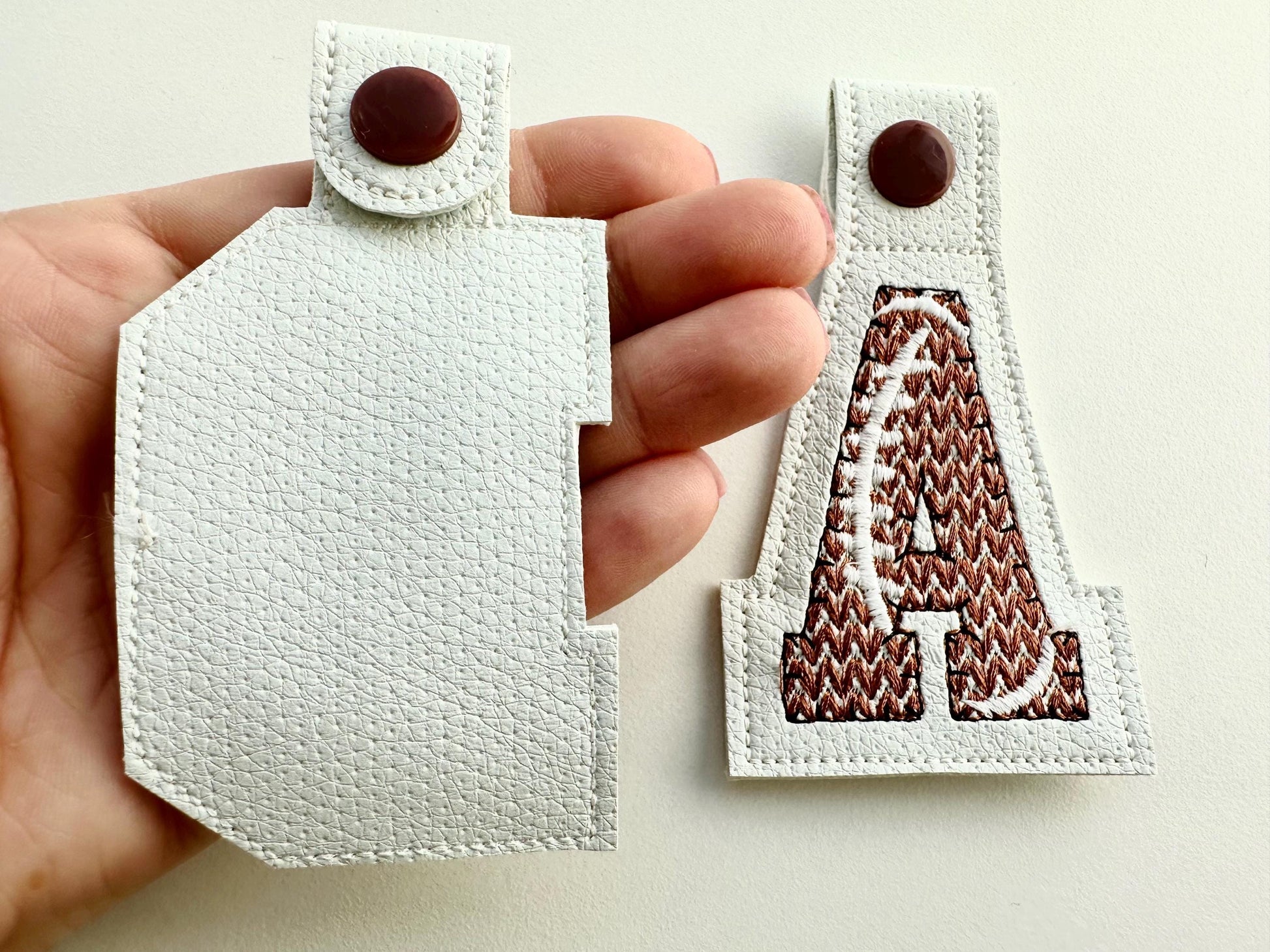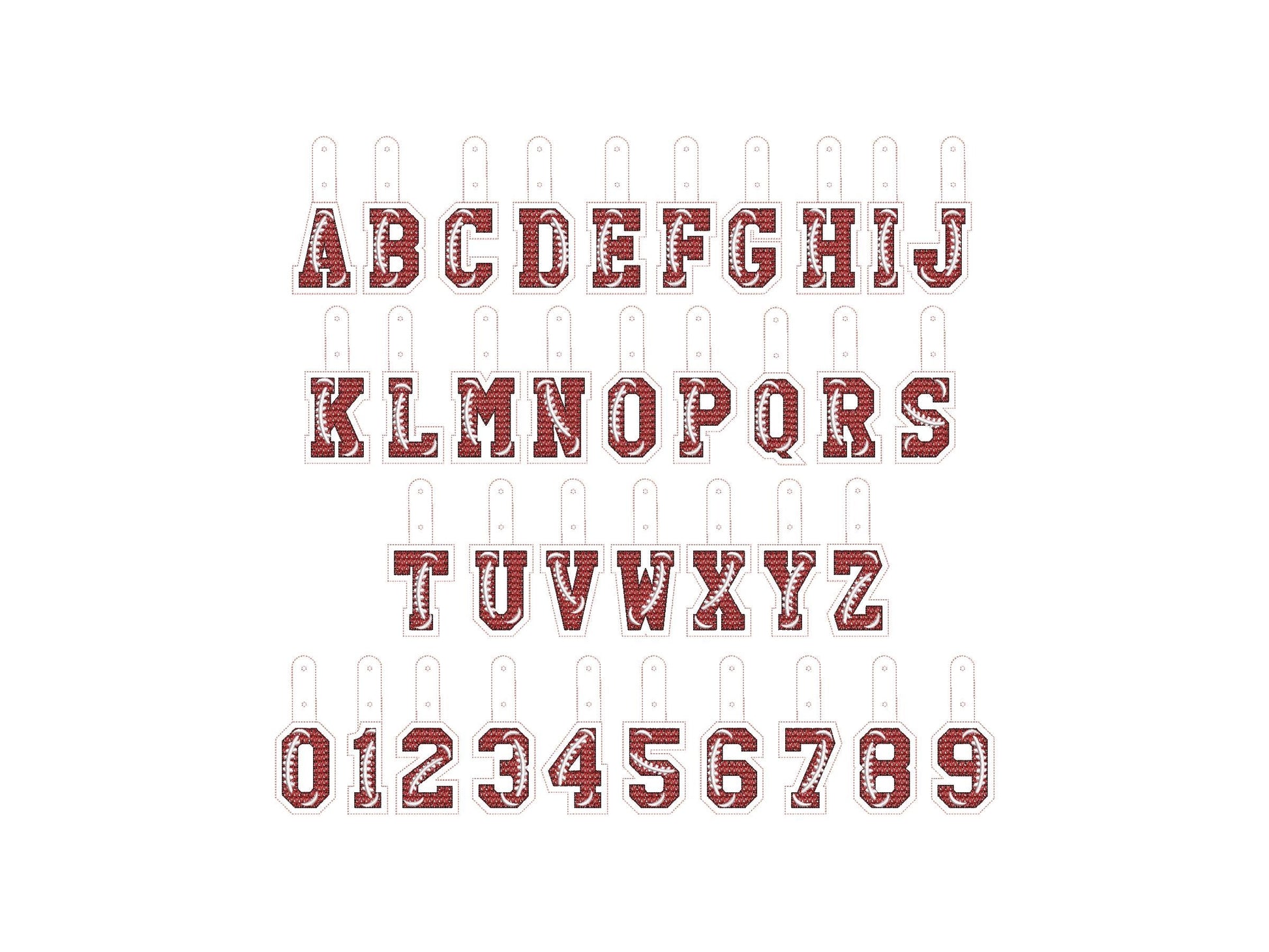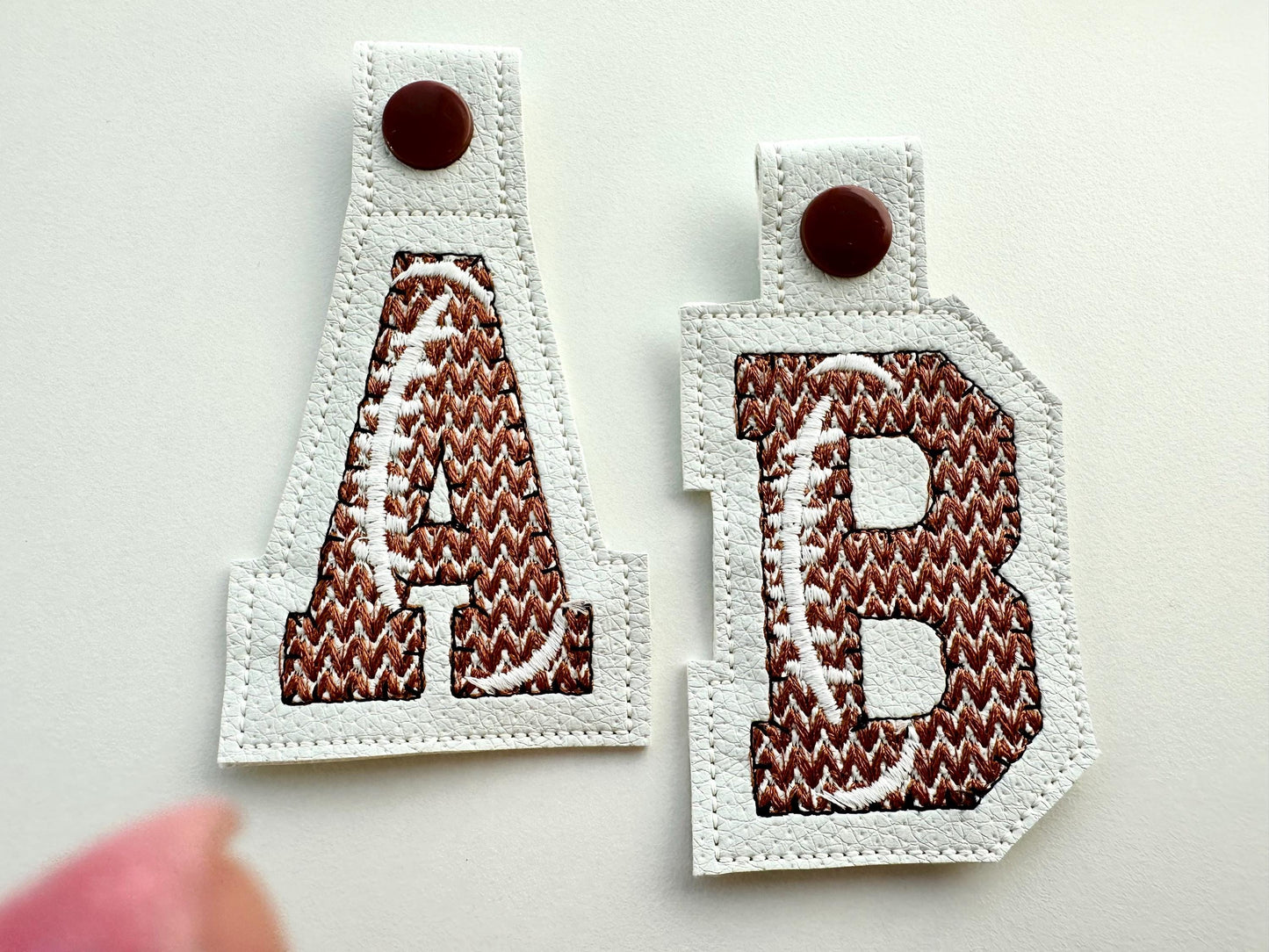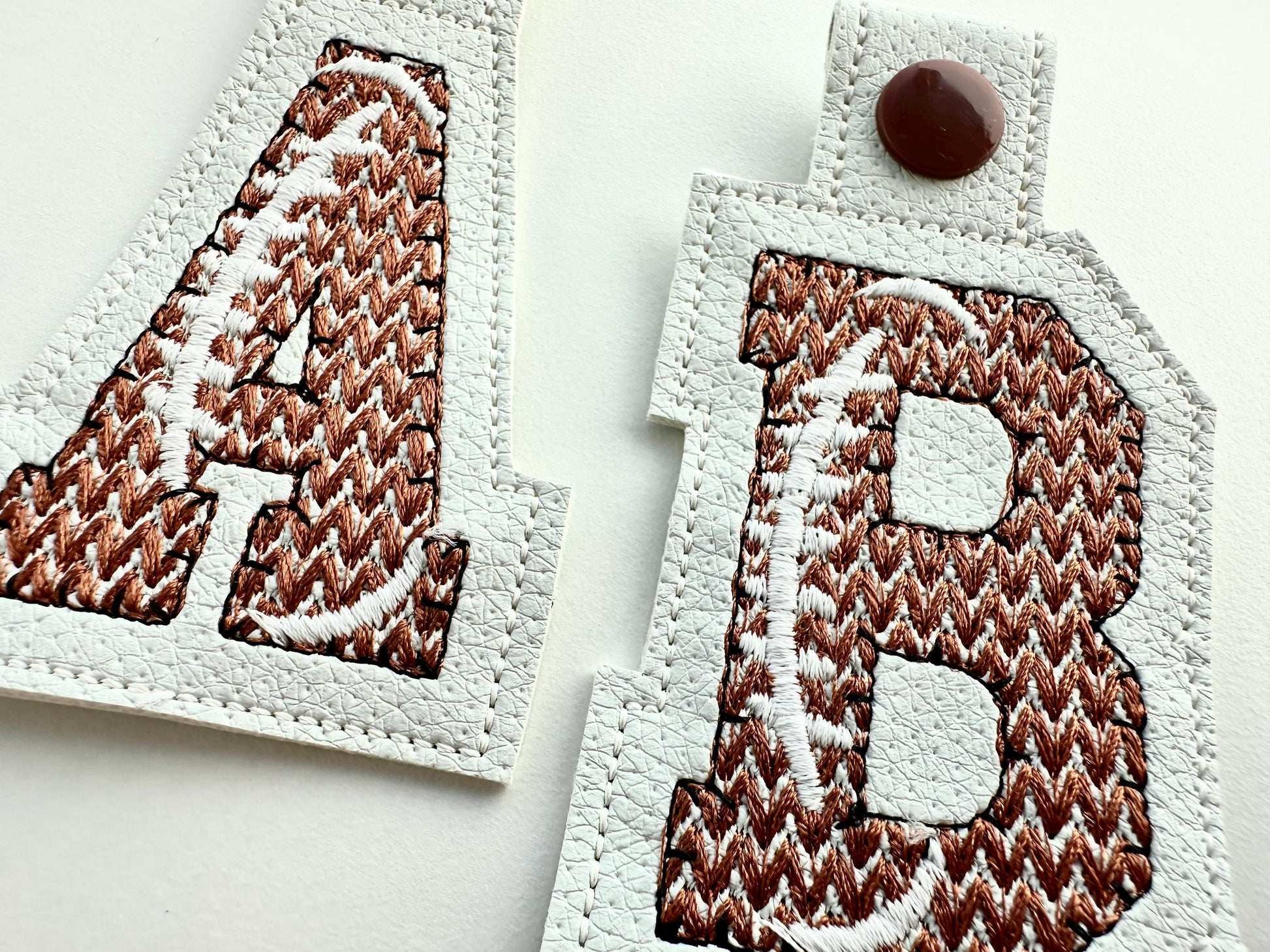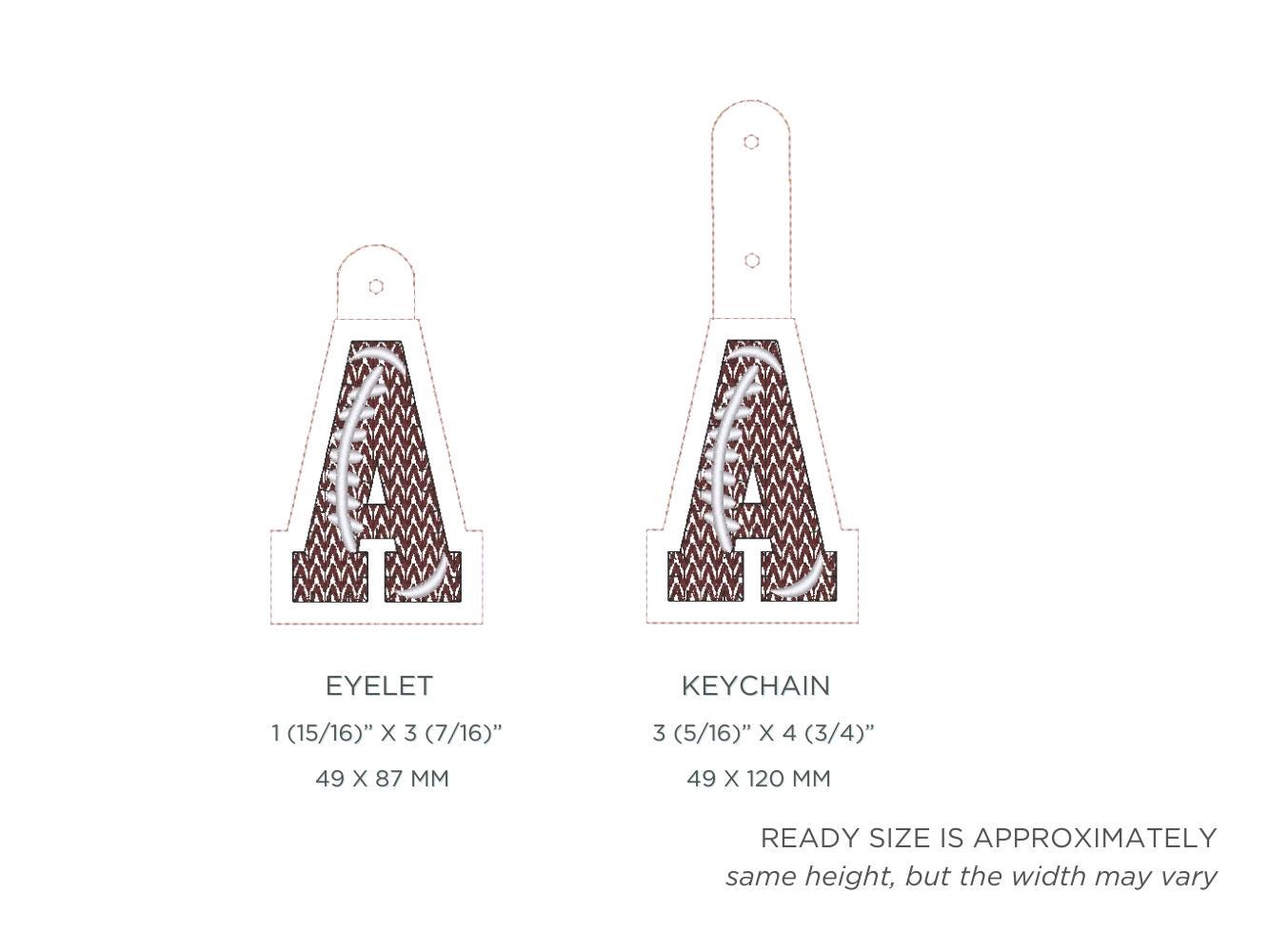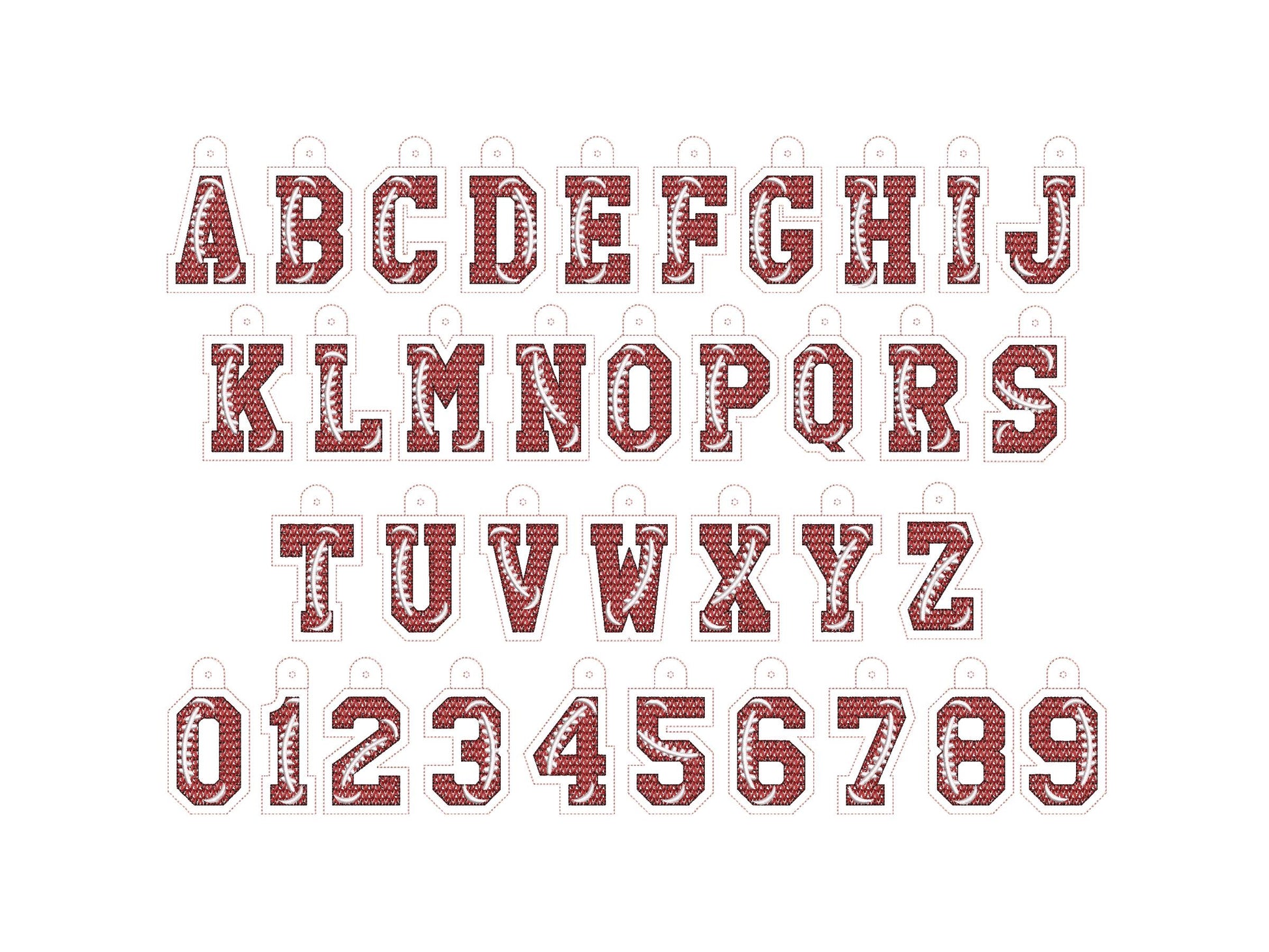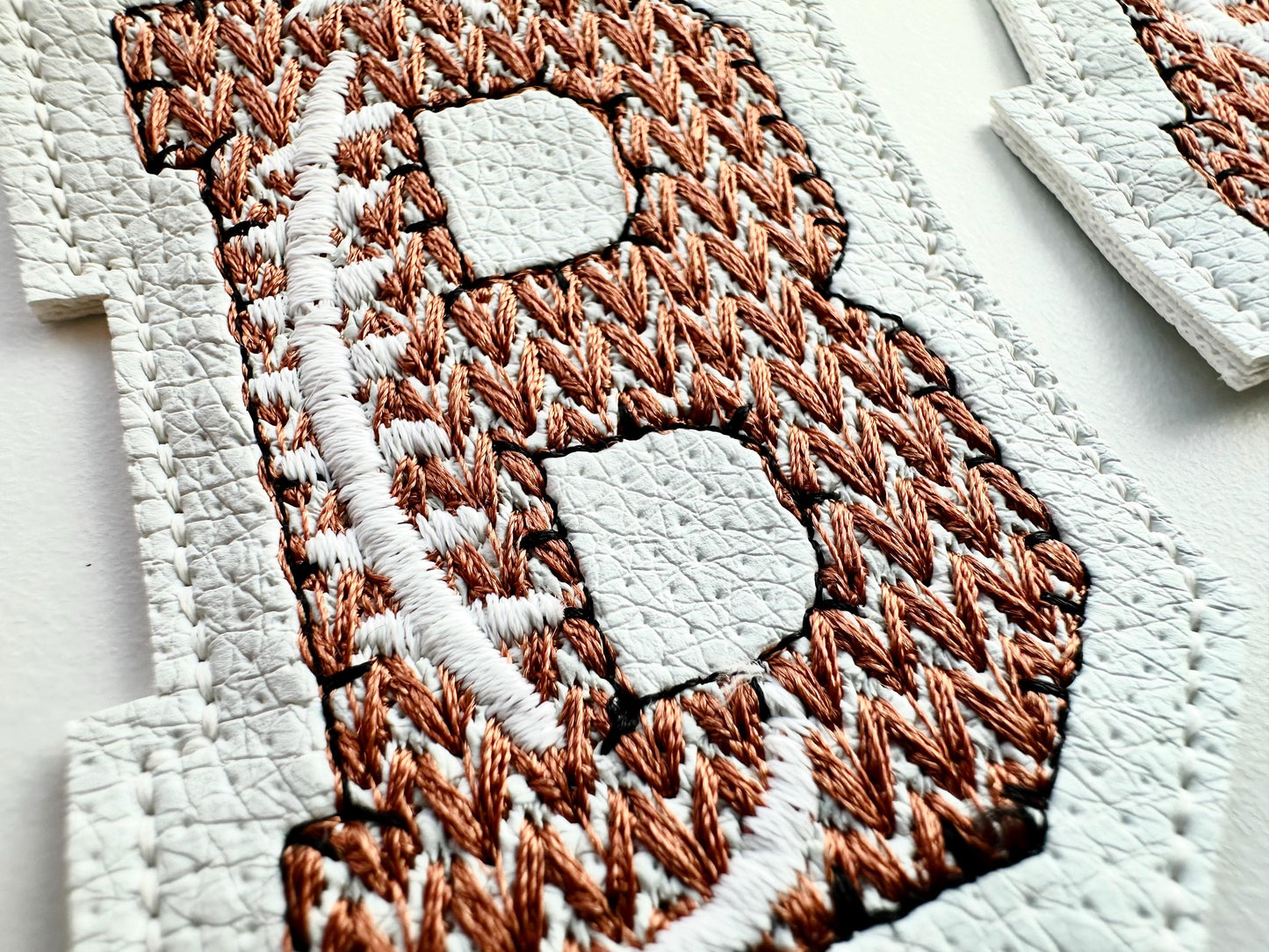
Or click to open the linkA football key fob with a knit-look block initial, made fully in the hoop. A great gift for players, coaches and football fans.
Letters A to Z, numbers 0 to 9 and an ampersand. Each comes as an eyelet key fob and a snap tab key fob. The finished key fob is about 3.5 inches.